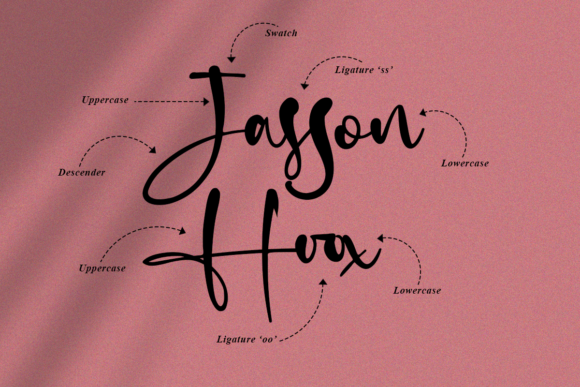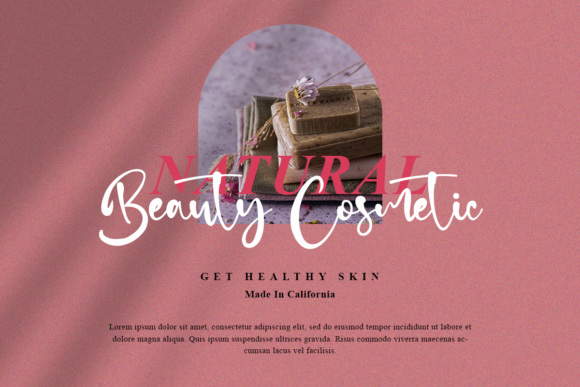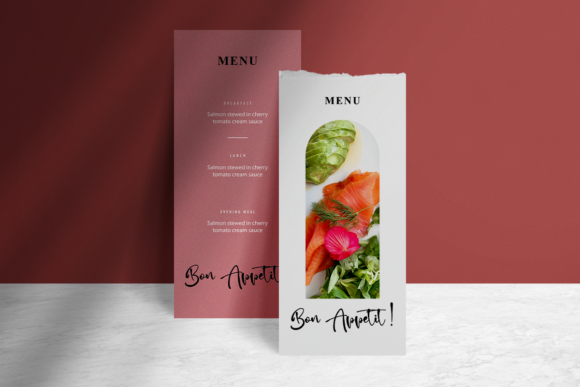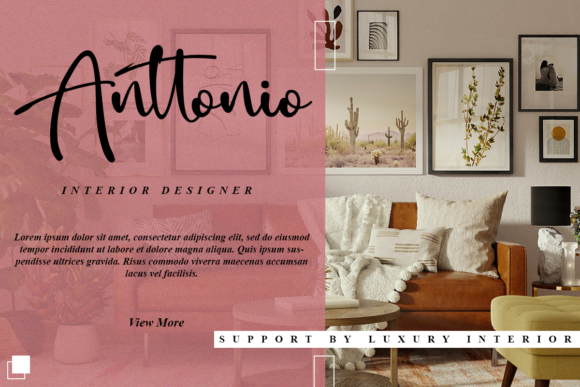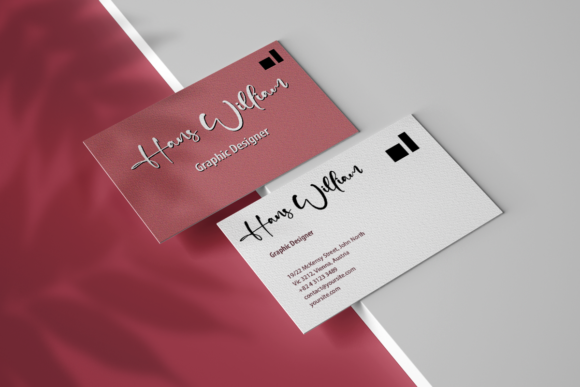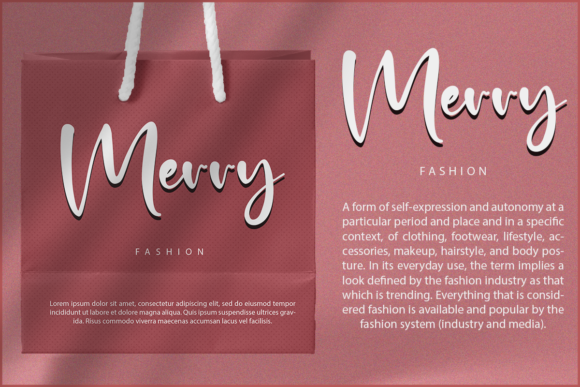
Introduction to Jhon Hilley Font
Jhon Hilley is a beautiful and refined script font.
It has a classy, elegant and modern look that can be used for logos, branding, invitations, stationery, wedding designs, social media posts, and much more .
Key Features of Jhon Hilley Font
Why Choose Jhon Hilley Font?
Jhon Hilley Font offers exceptional quality and versatility, making it a valuable addition to your design toolkit. Whether you’re creating for personal projects or commercial use, Jhon Hilley Font delivers professional results.